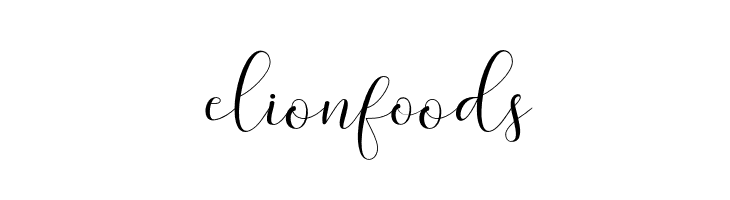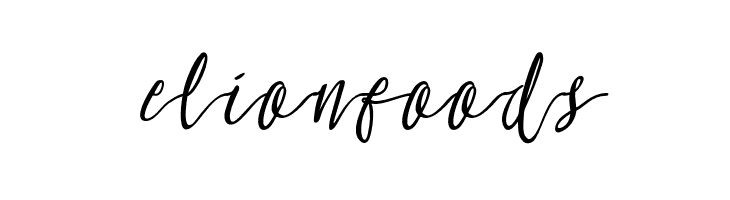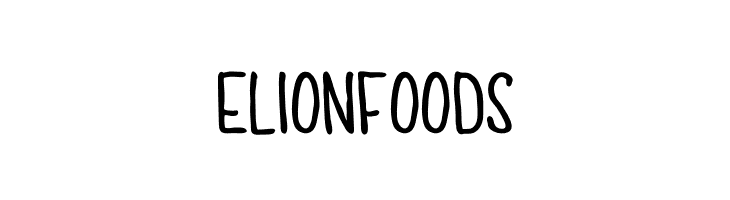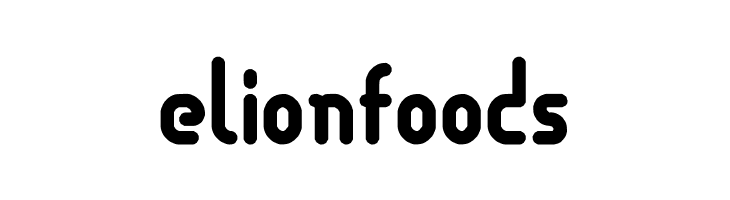
A bold, italicized font with a gradient effect and striped pattern, ideal for dynamic designs.
A playful, handwritten font with smooth, flowing lines and a modern aesthetic.
A bold, playful handwritten font with thick strokes and a lively, casual style.
A bold, handwritten font with a playful and dynamic style.
A classic serif font with modern elegance and balanced proportions.
A modern, condensed extra light typeface with a clean and elegant style.
A playful, handwritten font with flowing strokes and a casual style.
A modern, light sans-serif font with geometric shapes and low contrast.
A playful, ribbon-like italic font with bold outlines.
A bold, handwritten font with a playful and informal style.
A bold, handwritten-style font with a playful and dynamic appearance.
A playful handwritten font with a casual, dynamic style.
A playful, dynamic script font with a handwritten feel and smooth curves.
A classic serif font with a modern touch, combining elegance and readability.
A playful, hand-drawn font with rounded edges and a whimsical style.
A playful, handwritten font with tall, narrow letters and smooth, rounded strokes.
A bold, handwritten font with a playful and casual style.
A bold, playful font with snowy caps on each character, perfect for winter themes.
A flowing, elegant cursive font with smooth, continuous strokes.
A playful, casual handwritten font with smooth, flowing lines.
A bold, handwritten font with dynamic and expressive strokes.
A classic serif font with elegant curves and high contrast strokes.
A dynamic brush-style font with expressive, energetic strokes.
A jagged, eerie font perfect for horror themes with scratch-like strokes.
A bold, flowing script font with interconnected characters and a playful style.
A playful and bold script font with a whimsical, hand-drawn style.
A playful, squiggly outline font with a hand-drawn aesthetic.
A playful, bold font with rounded, thick strokes and a friendly appearance.
A bold, hand-drawn font with an expressive and playful style.
A playful, casual handwritten font with dynamic strokes.
A playful and dynamic font with fluid, curvy letterforms and varied stroke thickness.
A playful, handwritten font with a bold, rounded style.
A playful, handwritten font with rounded edges and a casual, friendly style.